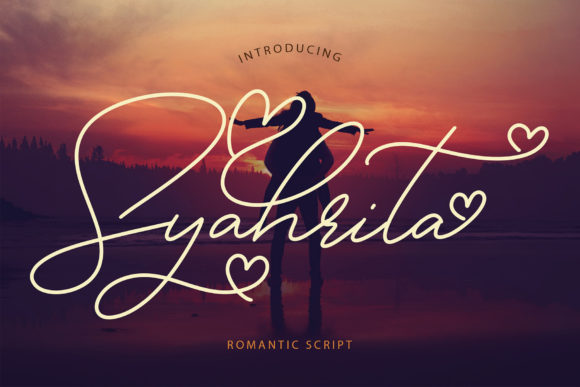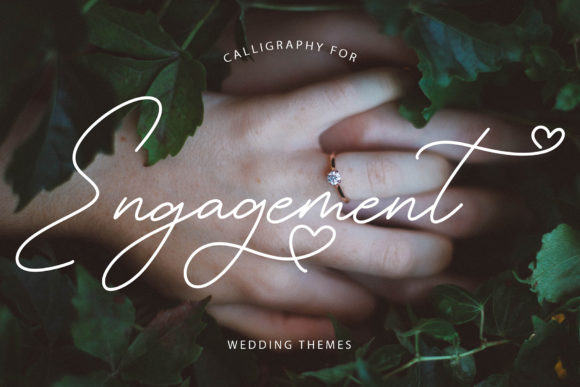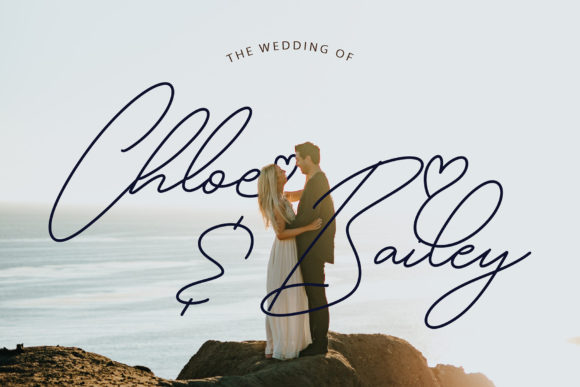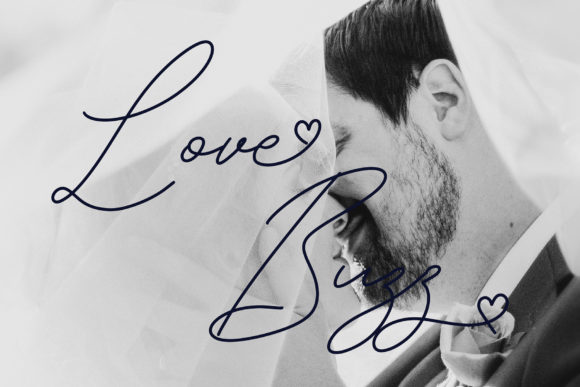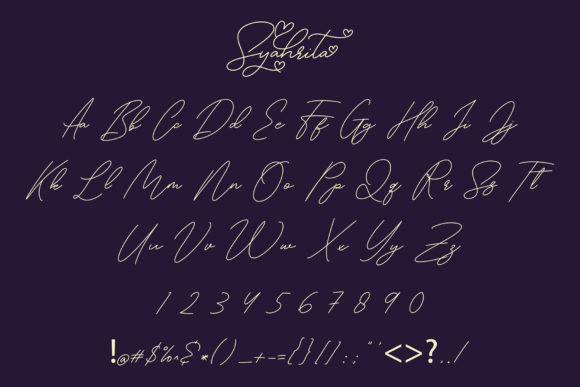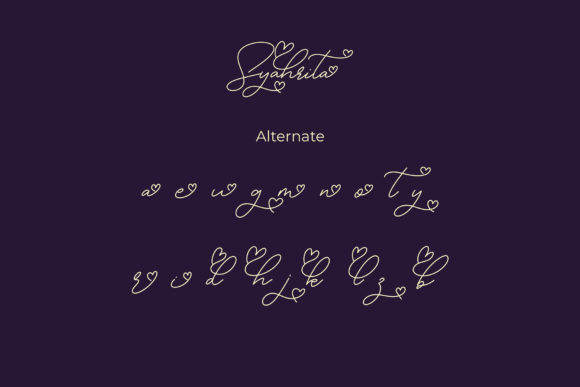
Syahrita Font
About Syahrita Font
Syahrita is a beautiful romantic font with a unique style.This hand-written font is perfect for wedding cards or classy events, it will give your project that extra something you are looking for.